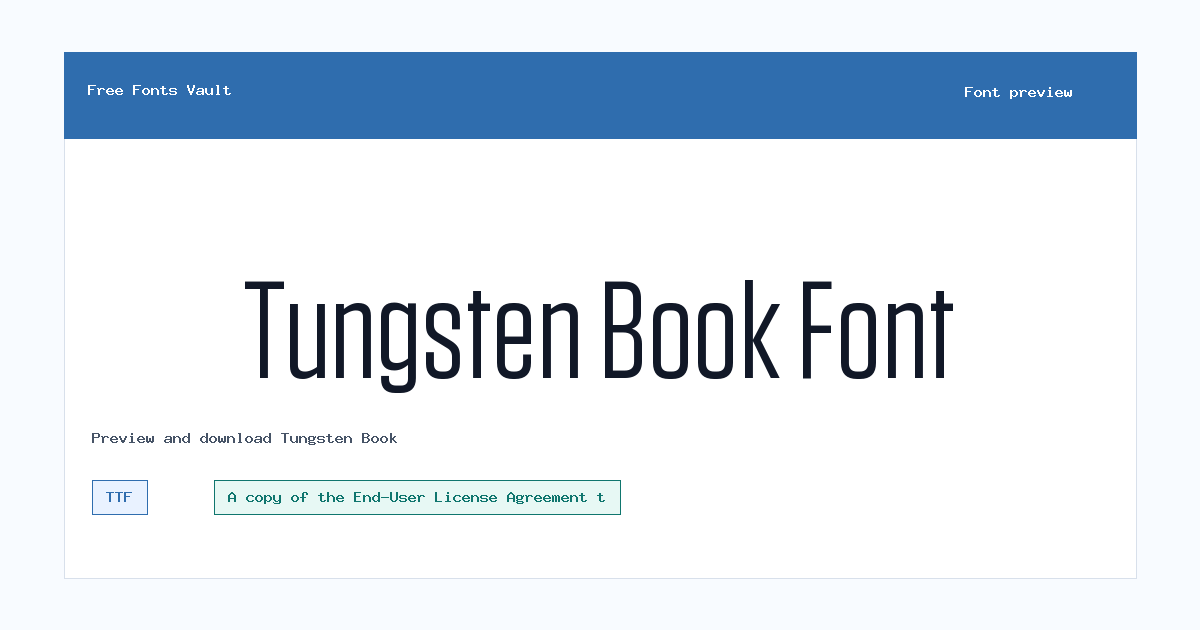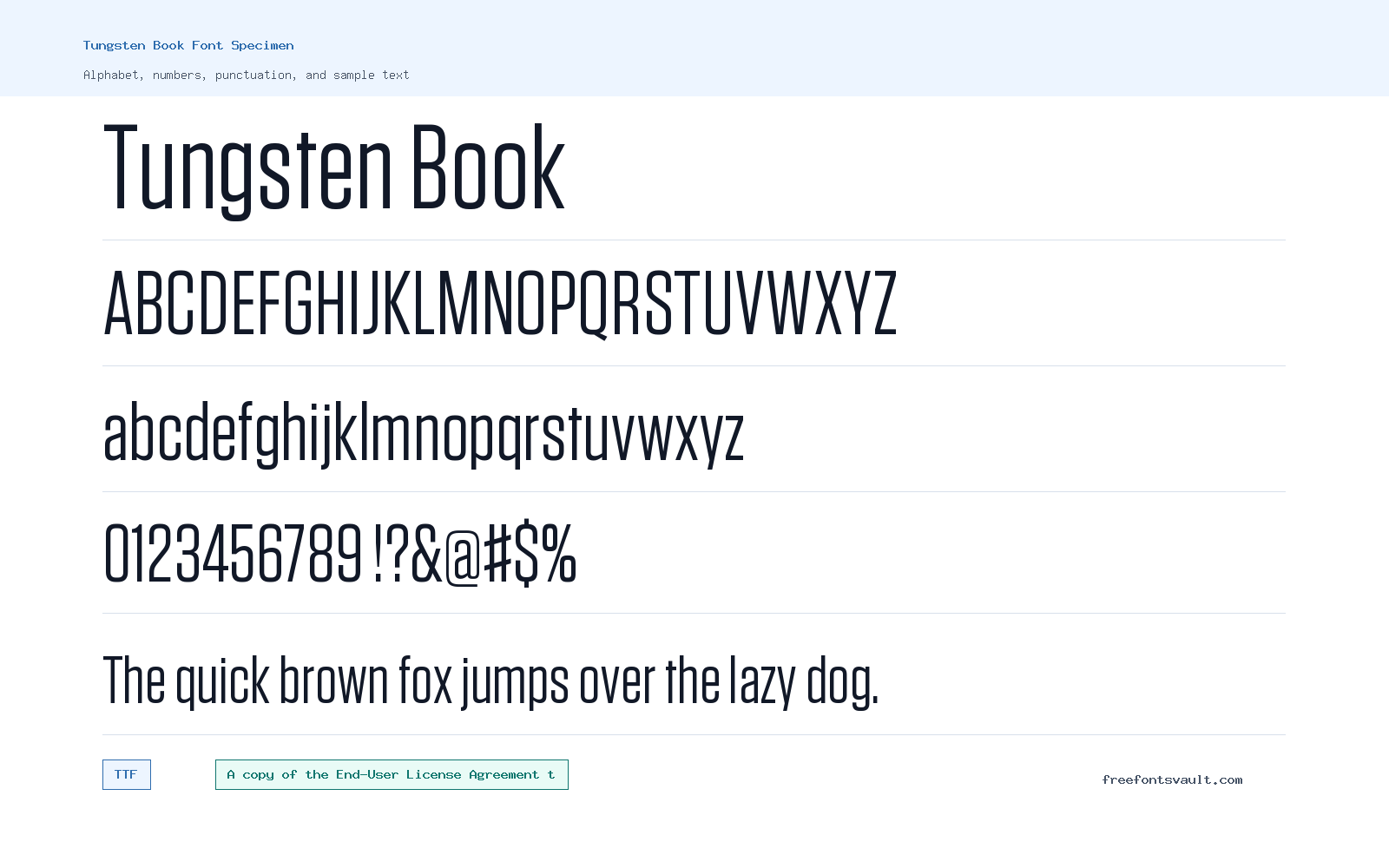
Tungsten Book
Tungsten Book font preview showing the family name
Tungsten Book font specimen showing alphabet, numbers, and sample text
Tungsten Book is a clean, upright typeface style offered here as a regular TTF font for preview and download testing.
About Tungsten Book
Tungsten Book has a direct, space-saving look that works best when you want text to feel structured without becoming decorative. The regular style is useful for titles, labels, short headings, poster text, and display settings where a narrow, orderly shape can help fit more words into a tight layout.
Because only the regular 400 weight is listed, it is best to test Tungsten Book with the exact words you plan to use. Try uppercase, lowercase, numbers, and punctuation in the preview box before downloading. It may be more effective for short text than for long reading blocks, especially if your design needs generous spacing or a softer text face.
Tungsten Book is worth testing with real headlines because compact upright fonts can change dramatically depending on word length. A short title may look sharp and efficient, while a longer phrase can feel compressed if the spacing is too tight. Use the preview to compare all-caps, title case, numbers, and punctuation at the size you plan to publish.
For practical layouts, let Tungsten Book handle the main phrase and use a more open text face for supporting details. This keeps the design structured without forcing every line into the same condensed rhythm.
• 400 weight suitable for short display text and compact headings
• Upright style with a practical, controlled appearance
• Compact display feel that can fit strong wording into tighter horizontal space
• Posters and title graphics
• Short headings and section labels
• Editorial display text
• Compact navigation or UI mockups
• Logo draft testing, with separate trademark review if needed
• Editorial headlines, poster lockups, navigation tests, and compact title systems
Tungsten Book is credited to Hoefler & Frere-Jones, with the foundry also listed as Hoefler & Frere-Jones.
Who designed Tungsten Book?
The font is credited to Hoefler & Frere-Jones.
What is Tungsten Book best used for?
It is best tested for short text such as headings, posters, labels, and compact display typography.
Can I use Tungsten Book for body text?
You can test it, but it is safer to use it for shorter text first. For long reading, compare it with a dedicated body font.